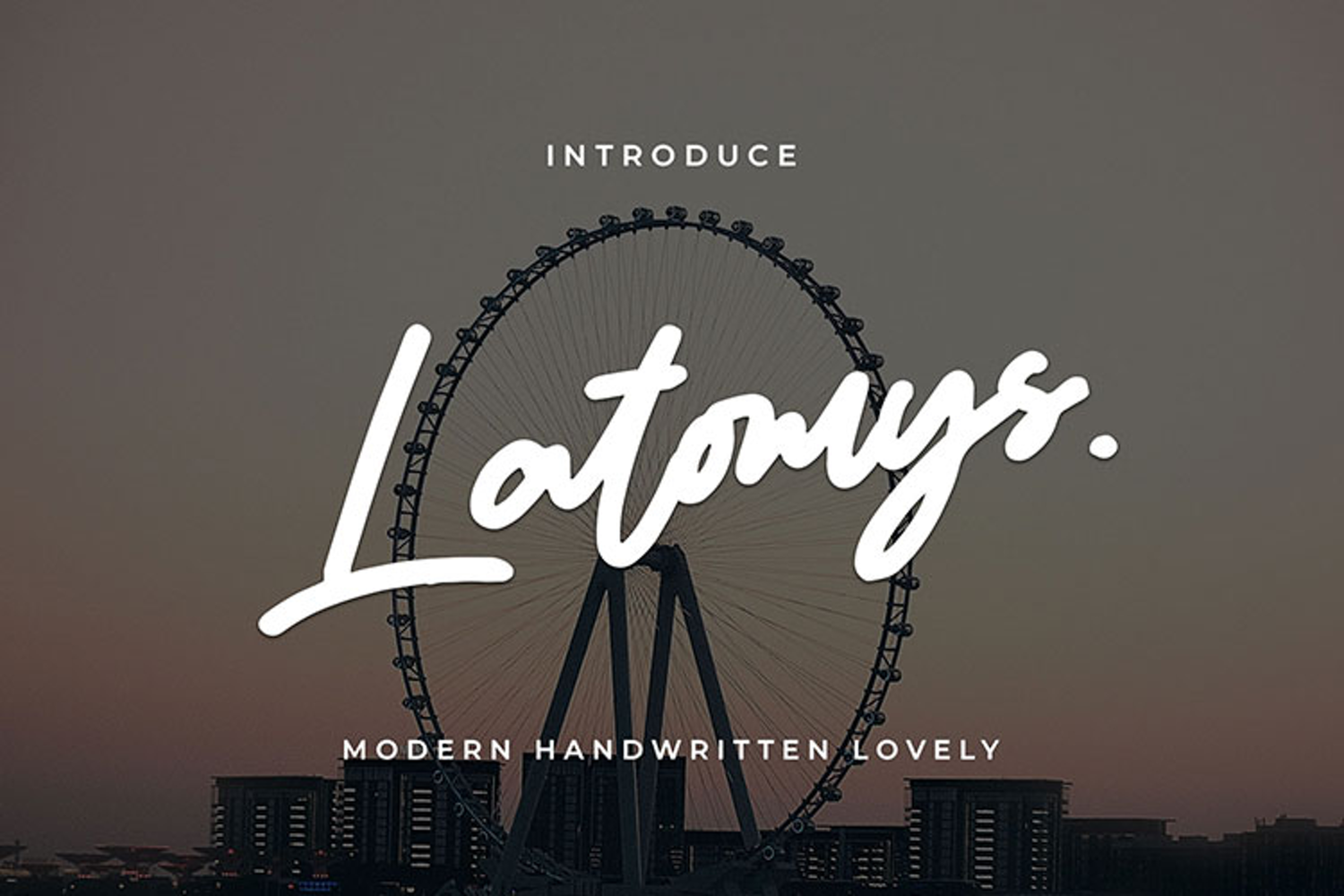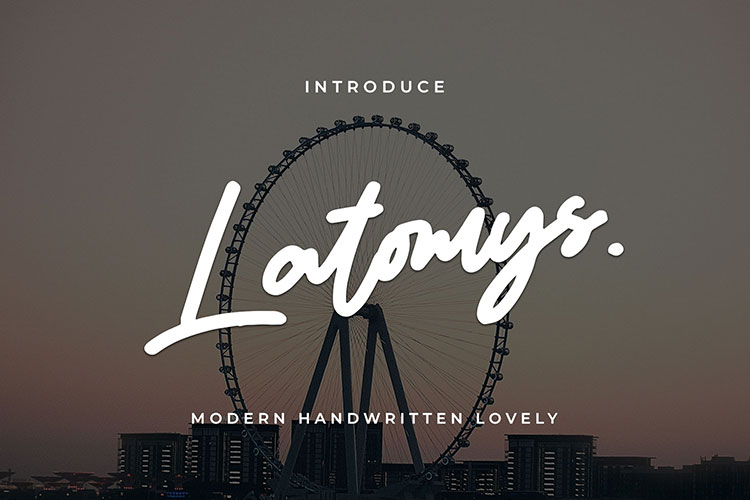
Latomys
Latomys is a light and breezy handwritten font that brings a touch of casual charm to your designs. With its fluid strokes and contemporary feel, it’s perfect for branding, travel blogs, social media posts, and lifestyle content. Ratoogell captures the essence of relaxed elegance and creative spontaneity.